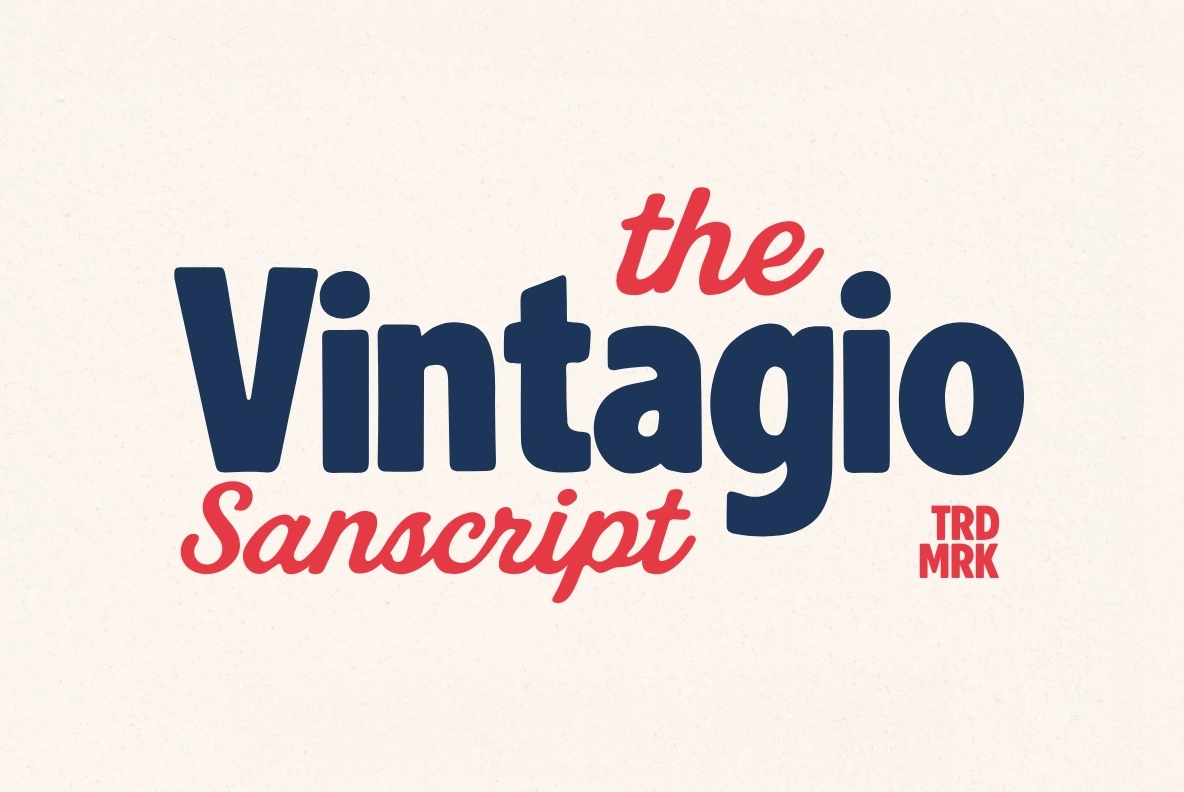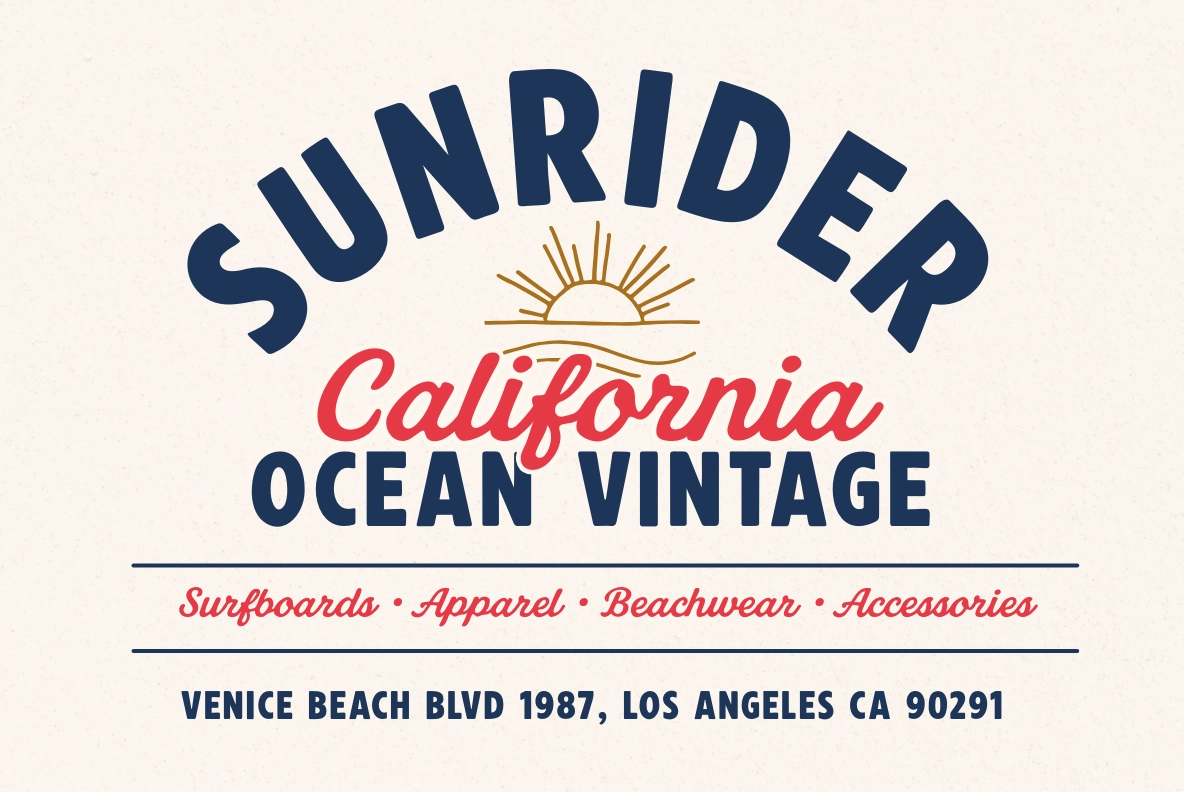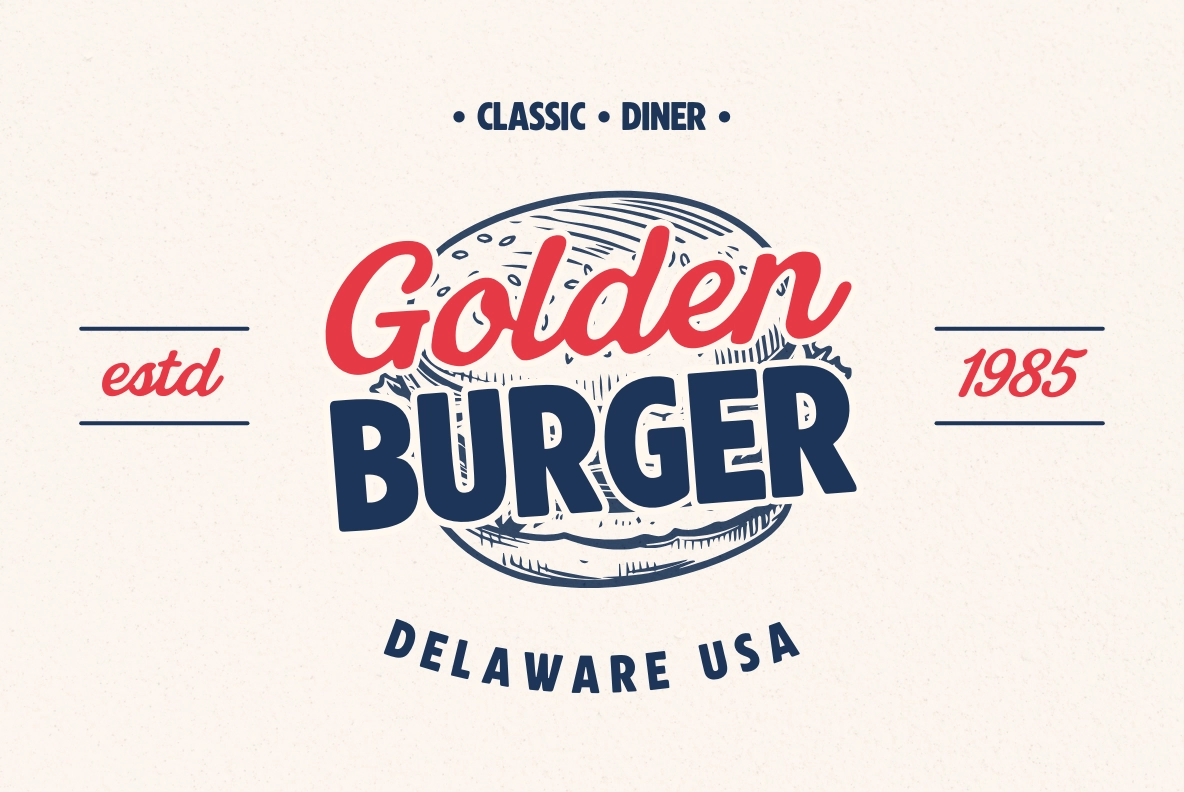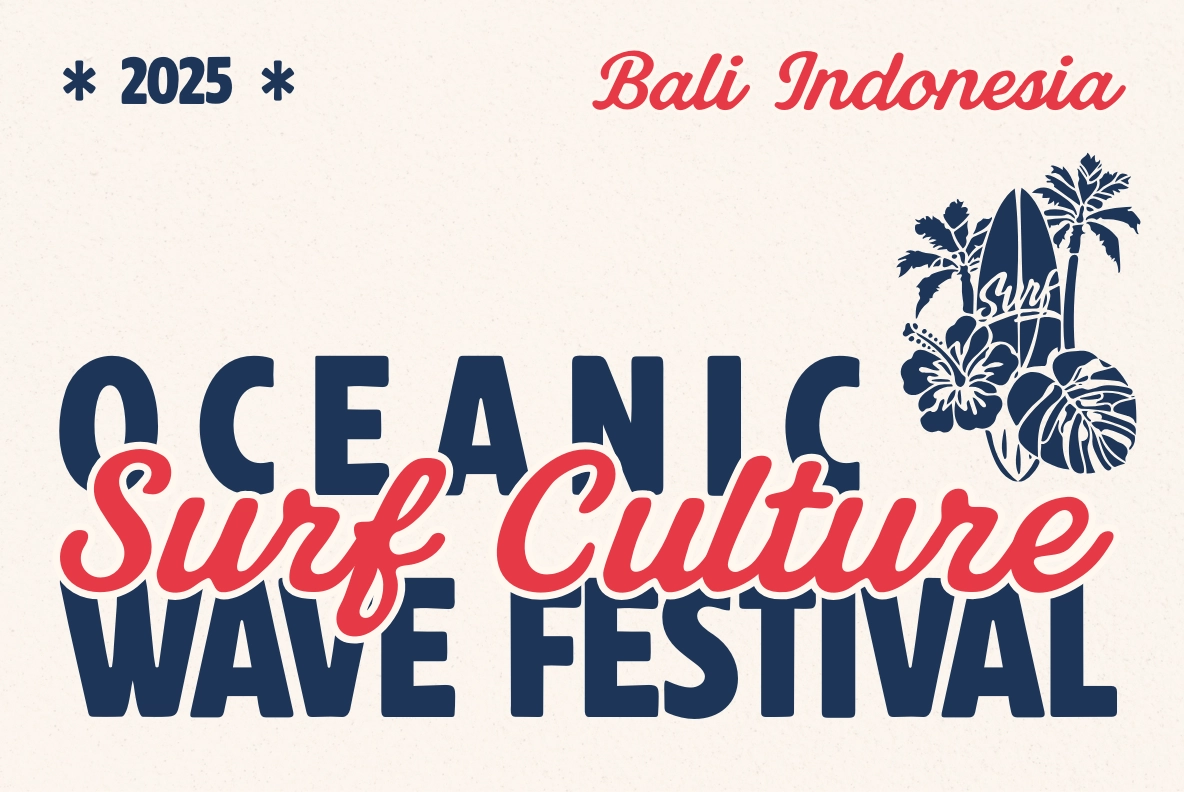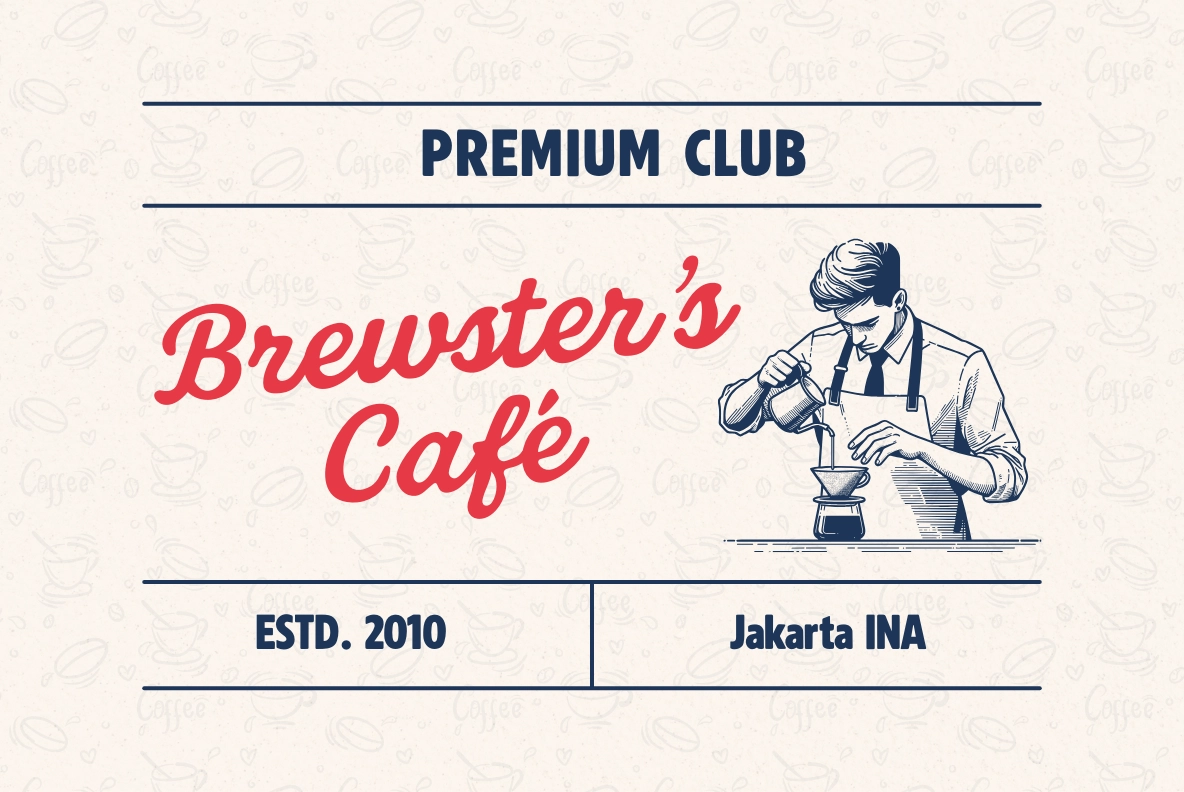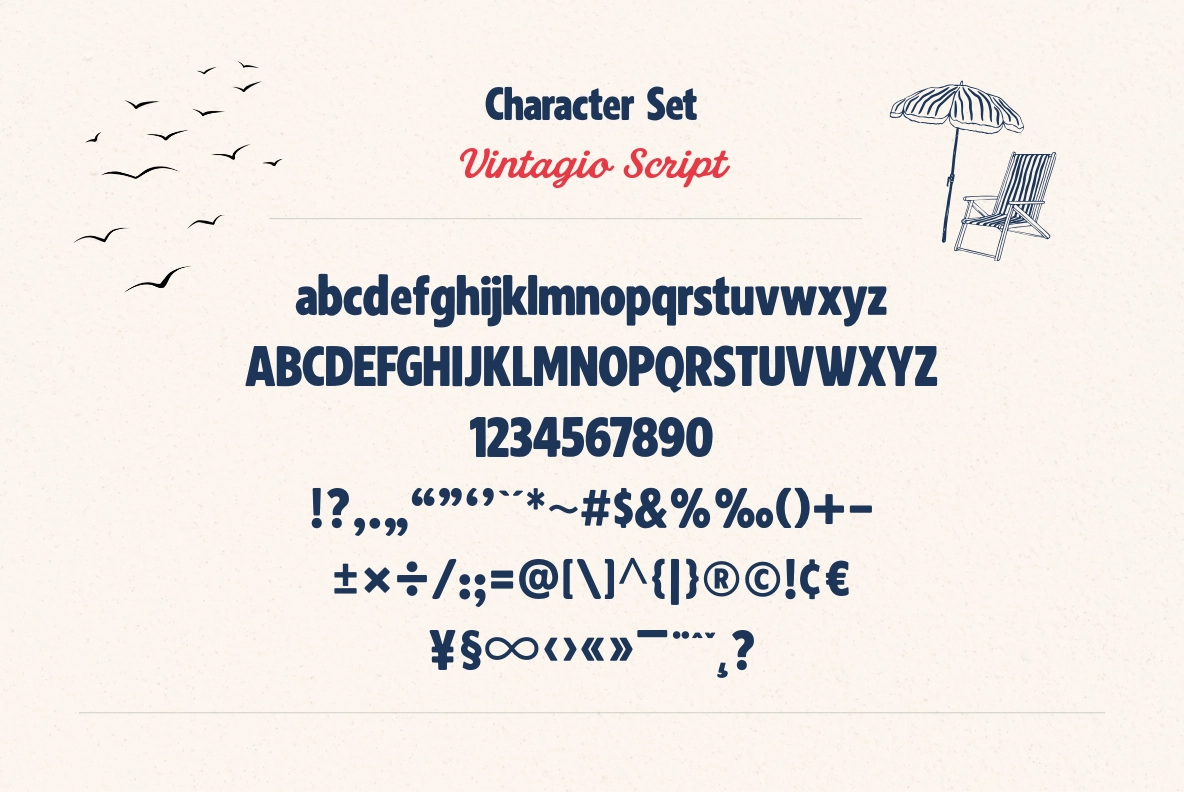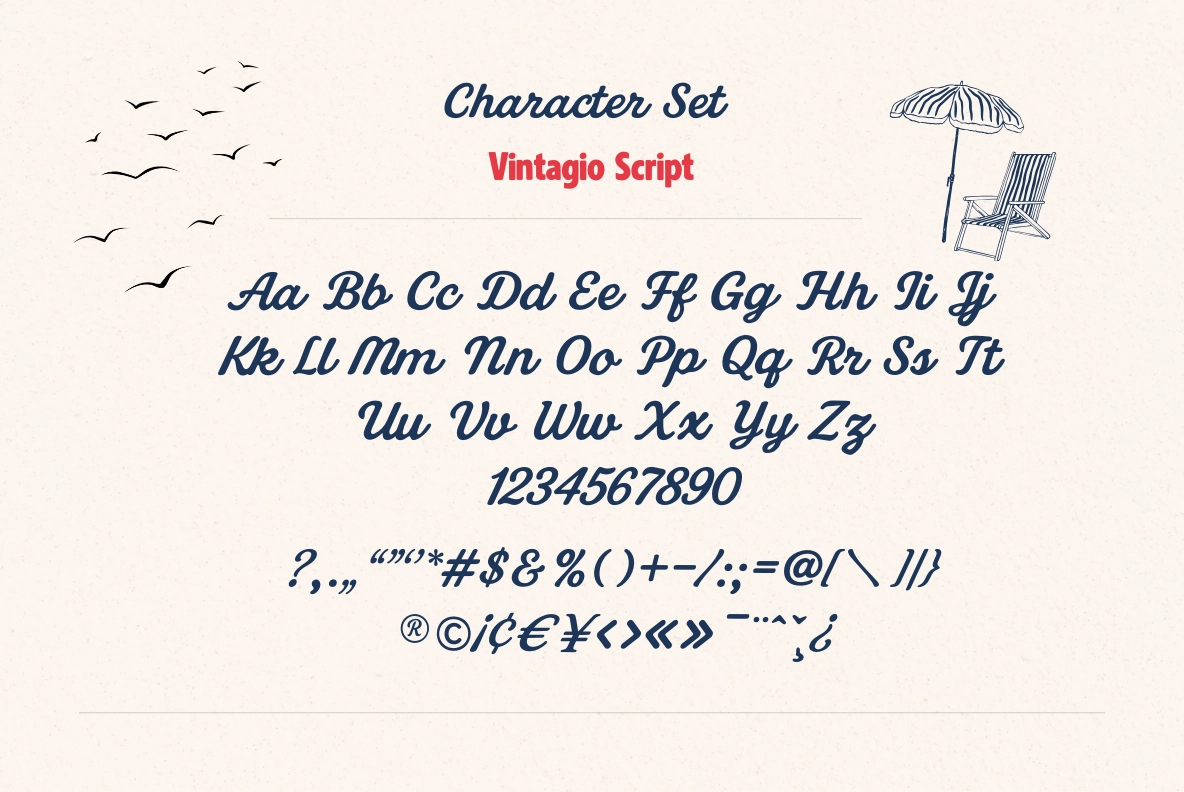
Vintagio Sanscript – Retro Typeface
Sans
Step back into the golden age of design with Vintagio Sanscript, a bold retro typeface that fuses vintage script flair with modern sans charm.
Every curve and stroke is inspired by mid-century signage, café storefronts, and nostalgic baseball logos — crafted to bring warmth, authenticity, and rhythm to your words. With its balanced contrast and smooth letterforms, Vintagio Sanscript feels perfectly at home in retro branding, posters, packaging, and social media aesthetics.
- Uppercase & lowercase
- Alternates & ligatures
Bring nostalgic energy to modern design — let Vintagio Sanscript be the voice of your timeless story.